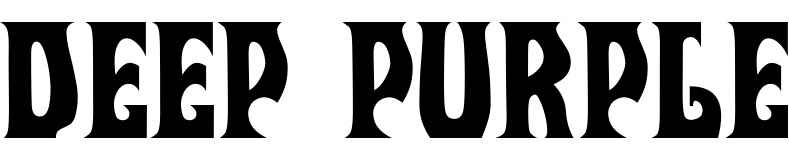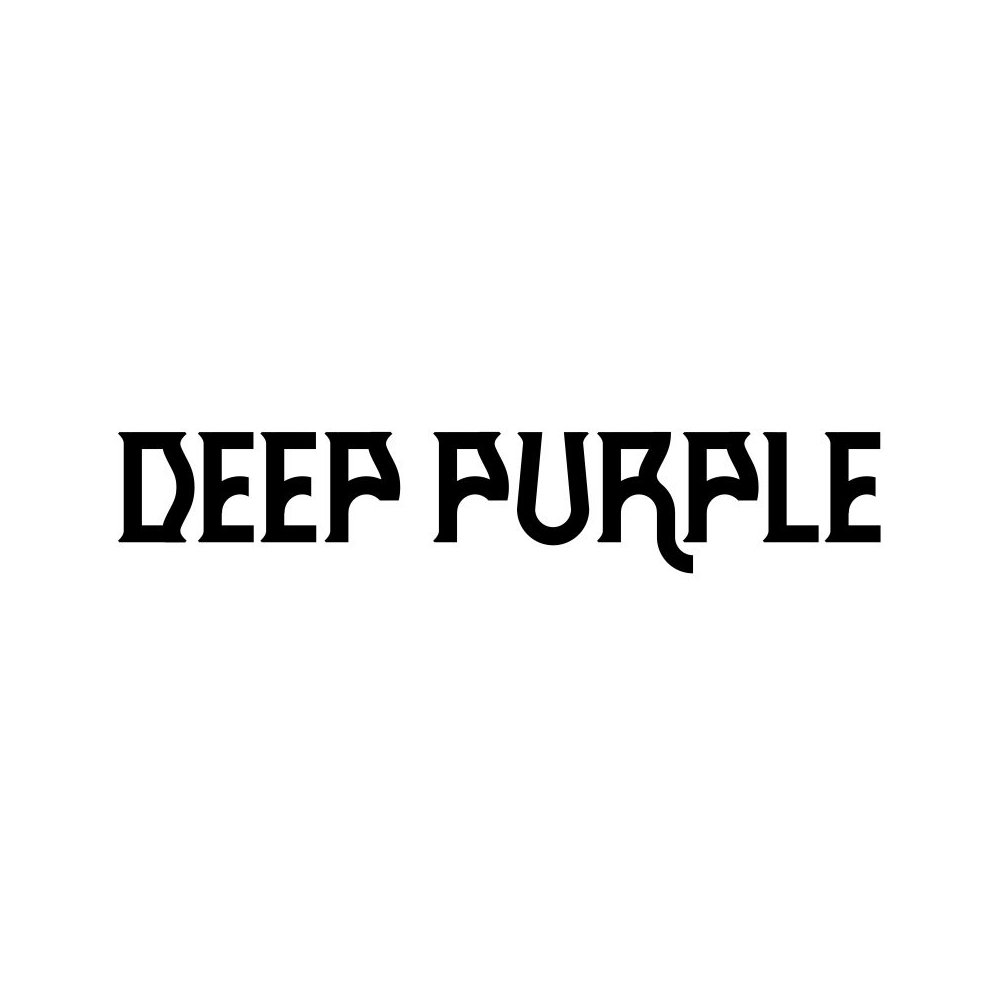
Deep Purple Font
BandDeep Purple is a British rock band formed in Hertfordshire in 1968. The band is known for its influential hard rock and heavy metal music. Deep Purple's primary logo features retro and rounded lettering as seen on their ninth album "Stormbringer".
This Deep Purple logo was seen on their debut album Shades of Deep Purple. ShadesRech0 is a free font you can download from the Fonts Used section to replicate it.
This logo is from their 2013 album Now What?! featuring brush lettering in purple, likely based on a manually italicized Chiller font.
Originally seen on the eleventh album Perfect Strangers, the Deep Purple logo now features the band's initials as a three-dimensional monogram.